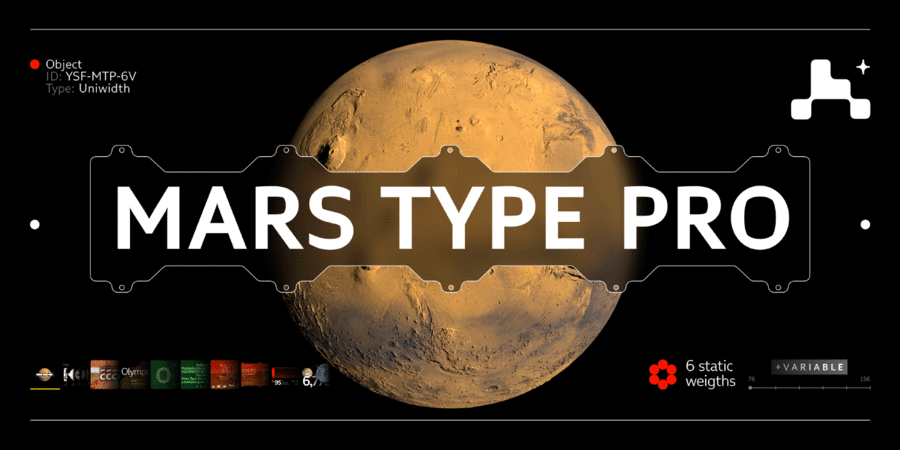
Mars Type PRO font family is a development of free font Mars Type (2019). The new version consists of 6 font styles and a variable font. The metrics in the typefaces are made so that the text has the same length in different weights. This principle is called Uniwidth and is useful when working with UI-design and navigation. For example, if you change the boldness of the text on a button or pointer, the length of the inscription will not change.
Mars Type PRO has open shapes and other features that increase its distinctiveness and readability. This typeface is ideal for wayfinding and interfaces in a future Martian Colony as well as on Earth. The main feature of the font is the special shape of the ovals (a perfect circle on the outside, a "porthole" on the inside) and the correspondence of the angle of some characters, such as slash, to the Mars axis of rotation tilt – 25.19°. Vertical slices of open counters, as in Futura and Gill Sans, allow the new typeface to be as compact as humanistic sans serifs while maintaining its geometric (technological) character. 50% of money from sales of this typeface we donate to the Armed Forces of Ukraine! Promo pictures designed by Artem Morozov. The typeface was designed by Yevgen Sadko (with the support of Ukrainian type designers Marchela Mozhyna and Bohdan Hdal) and released on Rentafont in 2023. The quick brown fox jumps over the lazy dog
urban, modern, laconic, accurate, strict, clear, flat, high-quality, simple, serious, calm, crisp, cutting, solid, globalized, clever, globalistic, engineering, schematic, space, convincing, practical, pragmatic, technically, urbanistic, logical, smooth, comfortable, low key, easy, stable, reliable, self-assured, strong, industrial, technogenic, authoritative, steel, robust, machine, important, iron, railway, ambitious, architectural, straight, heavy, motivating, tough, severe
society, city, transport, airport, Metro, navigation, medicines, innovations, design, device, coworking, engineer, equipment, science, space, Internet, mobile communications, gadget, IT specialist, IT, technology, scheme, x-ray, bank note, coin, astronomy, sky, pharmacy, industry, machine tool, tool, power station, energy industry, factory, architecture, repairs, urban studies, automation, institute, rocket, satellite, mechanical engineering, constructor, aviation, aircraft, motor, engine, railway carriage, railway, architect, packing, fitness equipment, steel-maker, oil Stylistics: